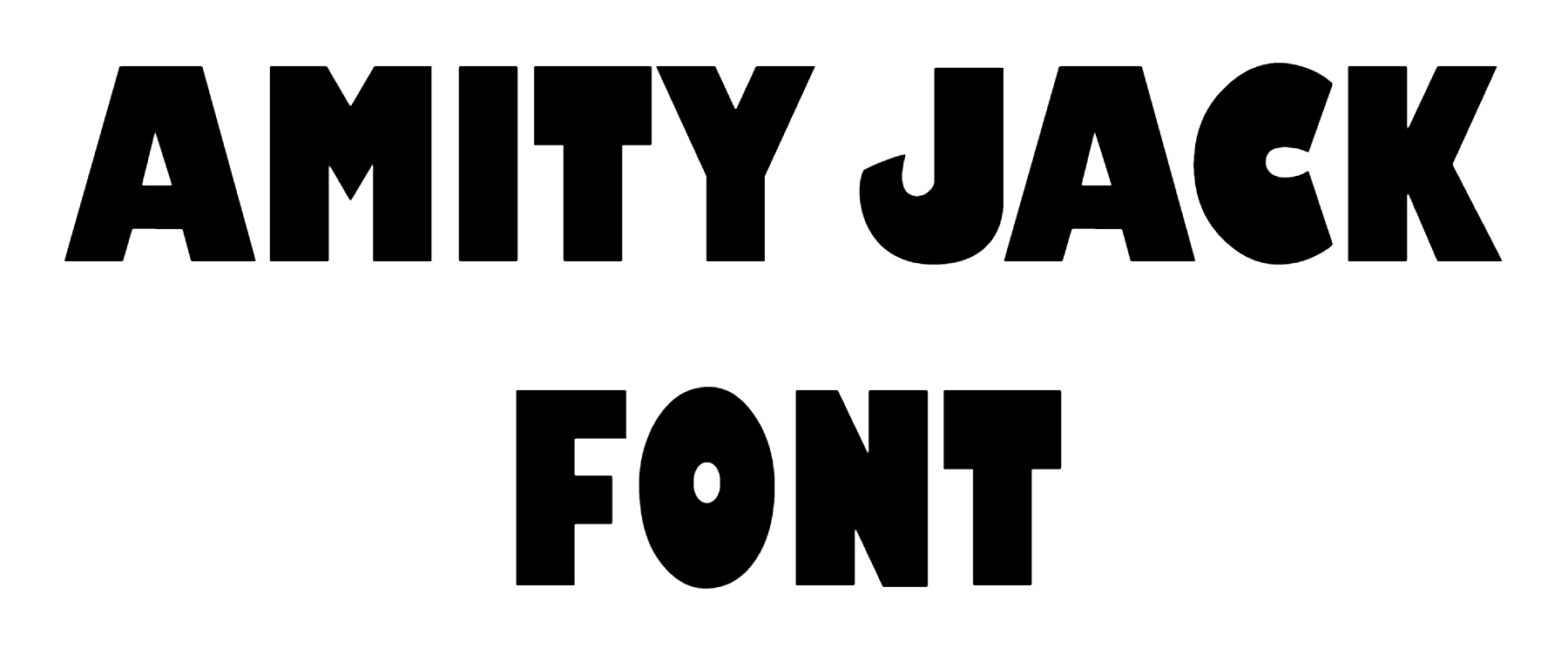
Amity Jack
Amity Jack is a fancy font created by AJ Paglia. Bold and full of character, it's built to stand out rather than blend in. You can download it for free and test it with your own words in the preview above.
- Designer: AJ Paglia
- Width: Condensed
What You Can Type With Amity Jack
With complete upper and lowercase letters and all ten digits, Amity Jack is ready for real wording, not just a single headline. Common punctuation such as &, !, ? and @ is included as well. It doesn't include accented letters such as é or ñ, which makes it an English-only font.
Where Amity Jack Works Best
Amity Jack is a natural fit for posters, logos and eye-catching headlines. Because the letters are narrow, long words fit in tight spaces like book spines, banners and video thumbnails. Its lowercase letters are tall compared to the capitals, which keeps it readable at smaller sizes. Use it for one standout word or headline and let simpler fonts handle the rest.
Who designed Amity Jack font?
Does Amity Jack support accented letters?
No. Amity Jack has no accented letters such as é, ñ or ü, so it's best for English text.